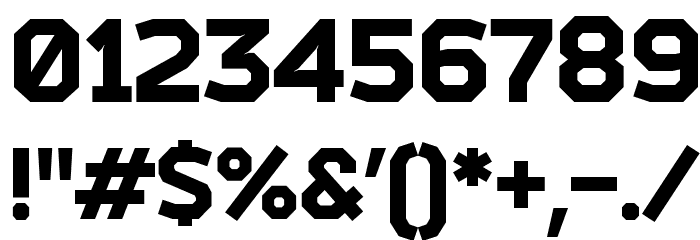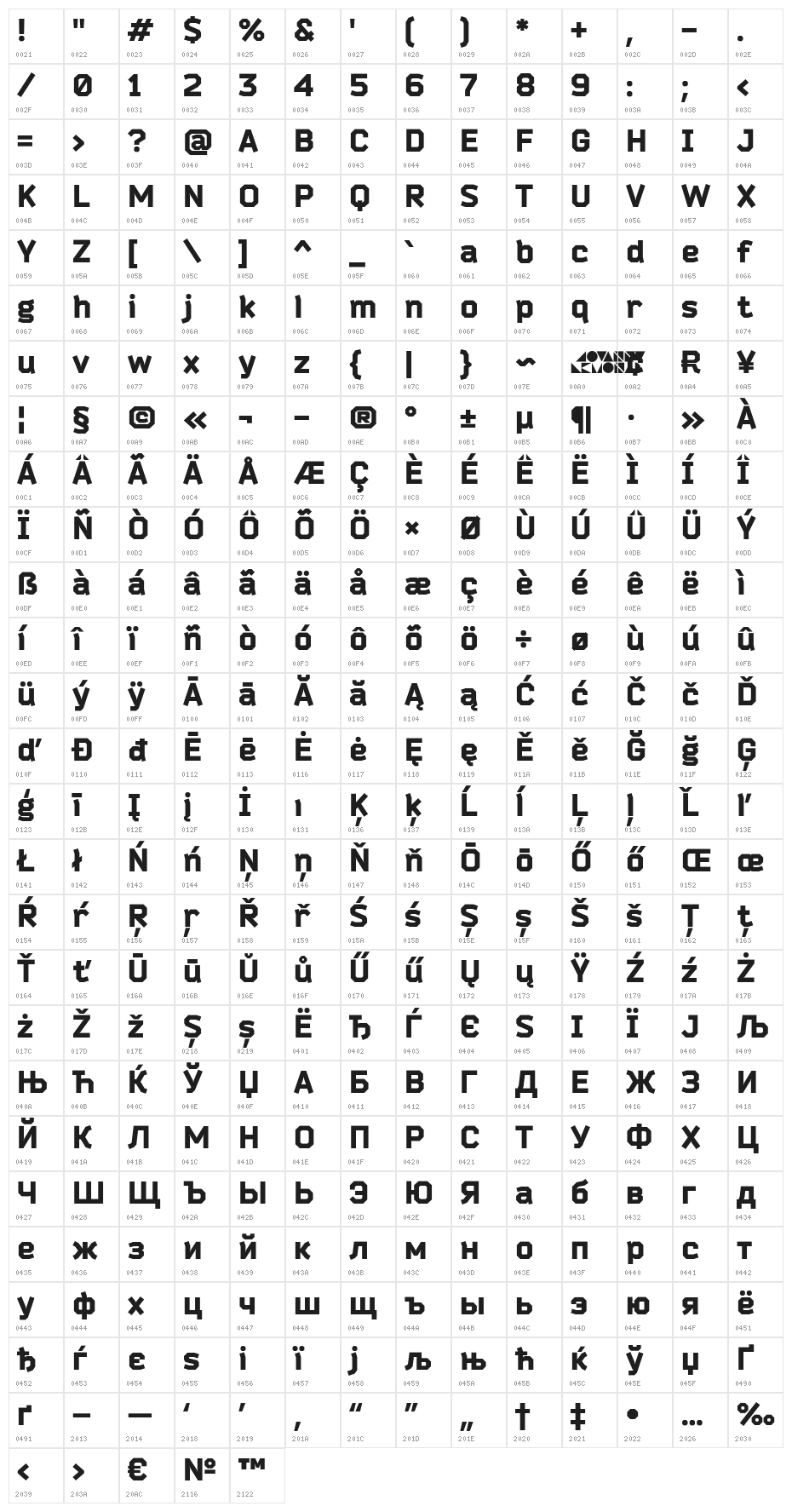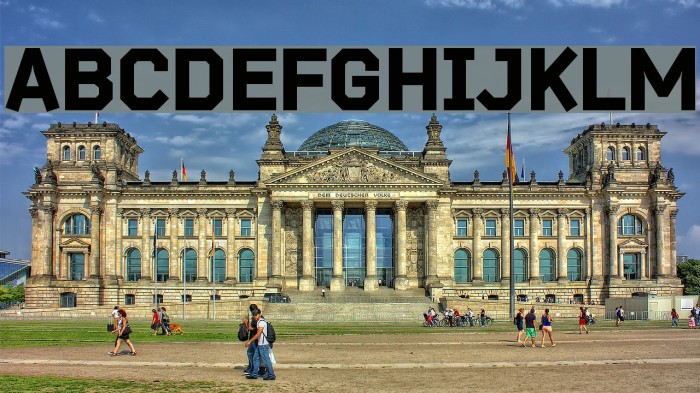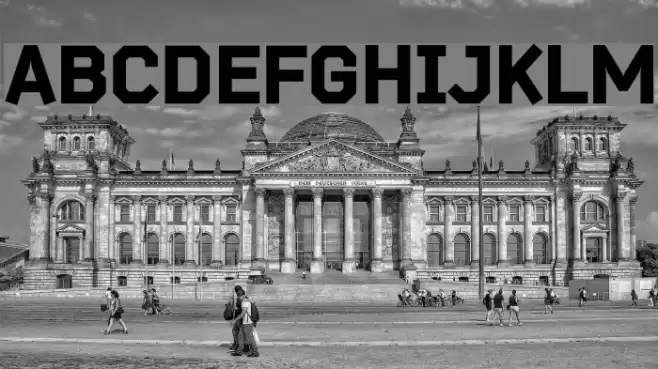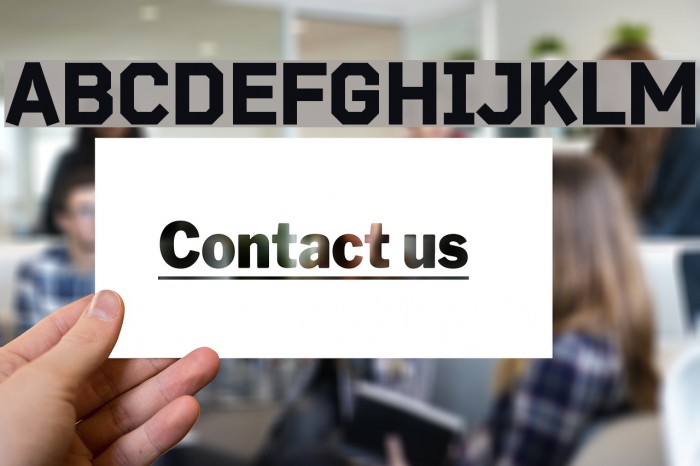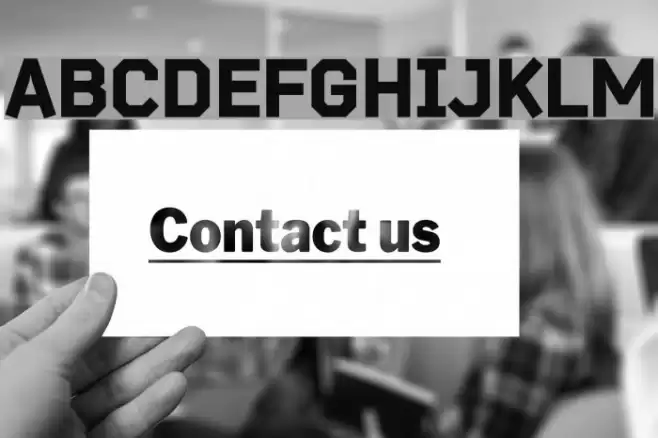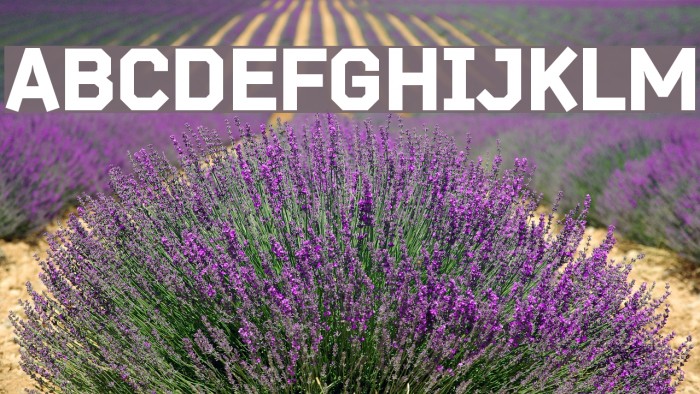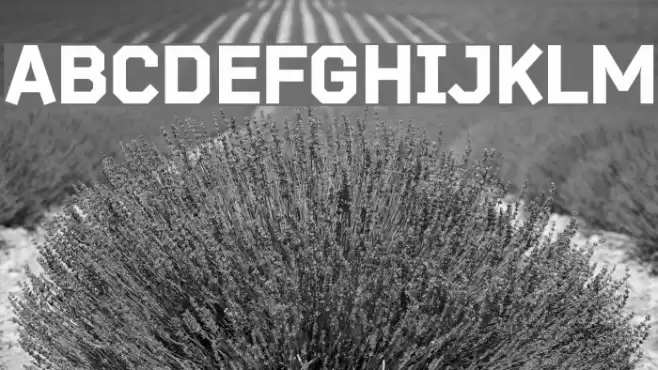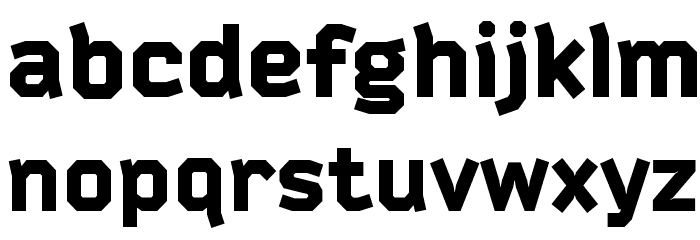
Bender-Black Font
Bender-Black Description
This font features a bold and robust design with a distinctly geometric and angular style. The characters are crafted with thick strokes and sharp edges, giving them a strong and commanding presence. The uppercase and lowercase letters maintain a consistent weight, contributing to a cohesive look. The numerals and special characters follow the same design principles, ensuring uniformity across all glyphs. This font's boldness and geometric nature make it highly suitable for impactful and attention-grabbing designs.
| Proposed Projects | Ideal for posters, logos, branding, and headlines where a strong visual impact is desired. |